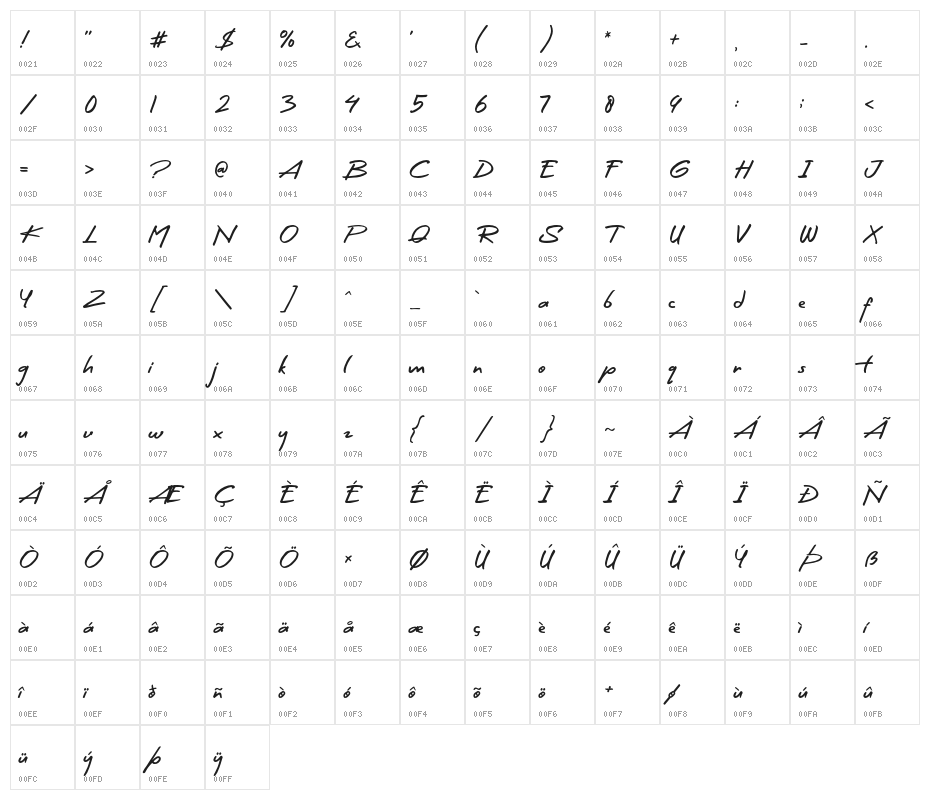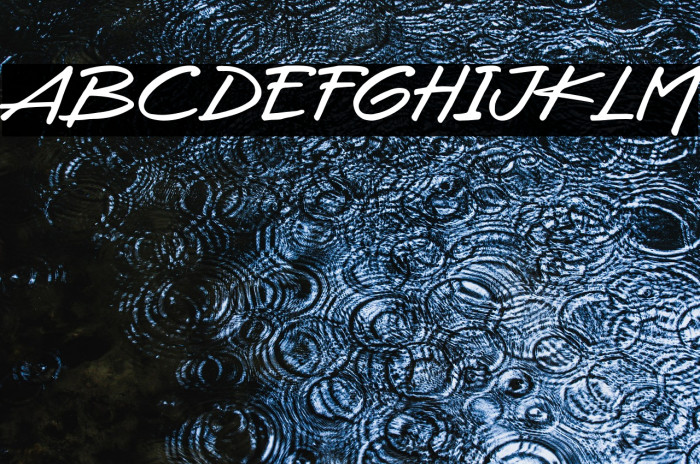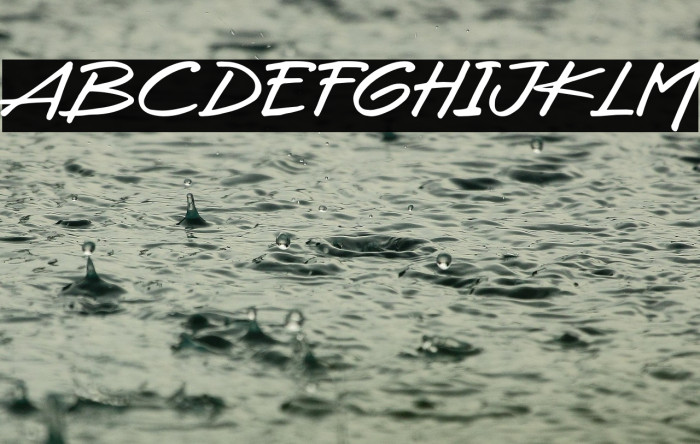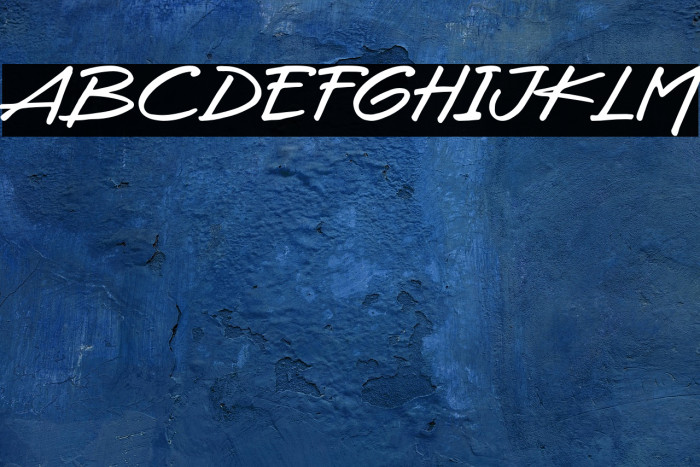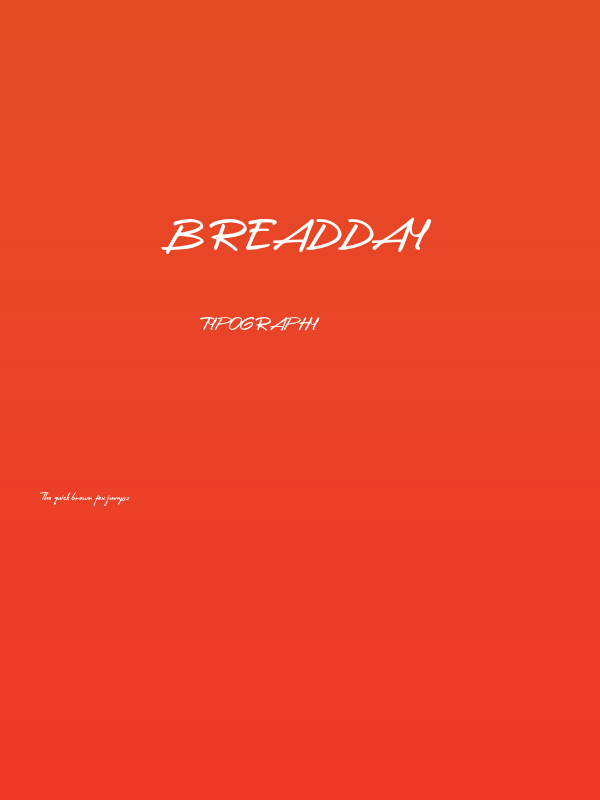
BreadDay Font
BreadDay Description
A casual, handwritten script font with a smooth, flowing style and slight slant.
| Overall Style | Casual, Informal |
| Proposed Projects | Greeting cards, invitations, personal branding. |